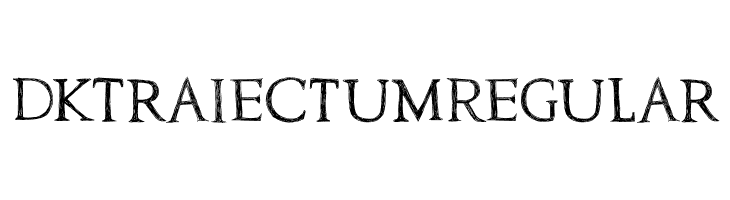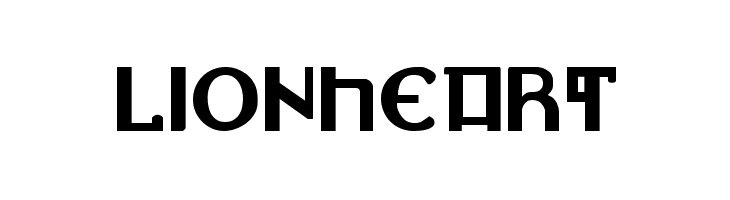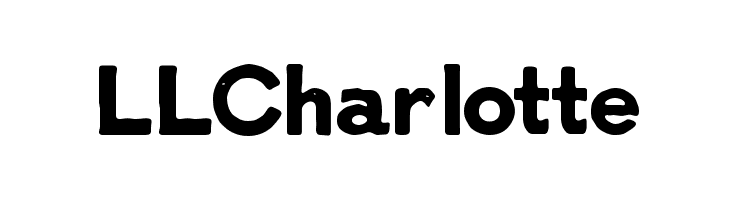
A bold, semi-condensed serif font with moderate contrast and classic styling.
A pixelated, monospaced font with a retro digital aesthetic.
A whimsical and playful font with quirky letterforms and dynamic strokes.
A playful and elegant script font with decorative loops and swirls.
A bold, medieval-inspired font with sharp, angular edges and dramatic serifs.
A modern sans-serif font with clean lines and rounded edges.
A playful, hand-drawn font with bold, rounded letters and a whimsical style.